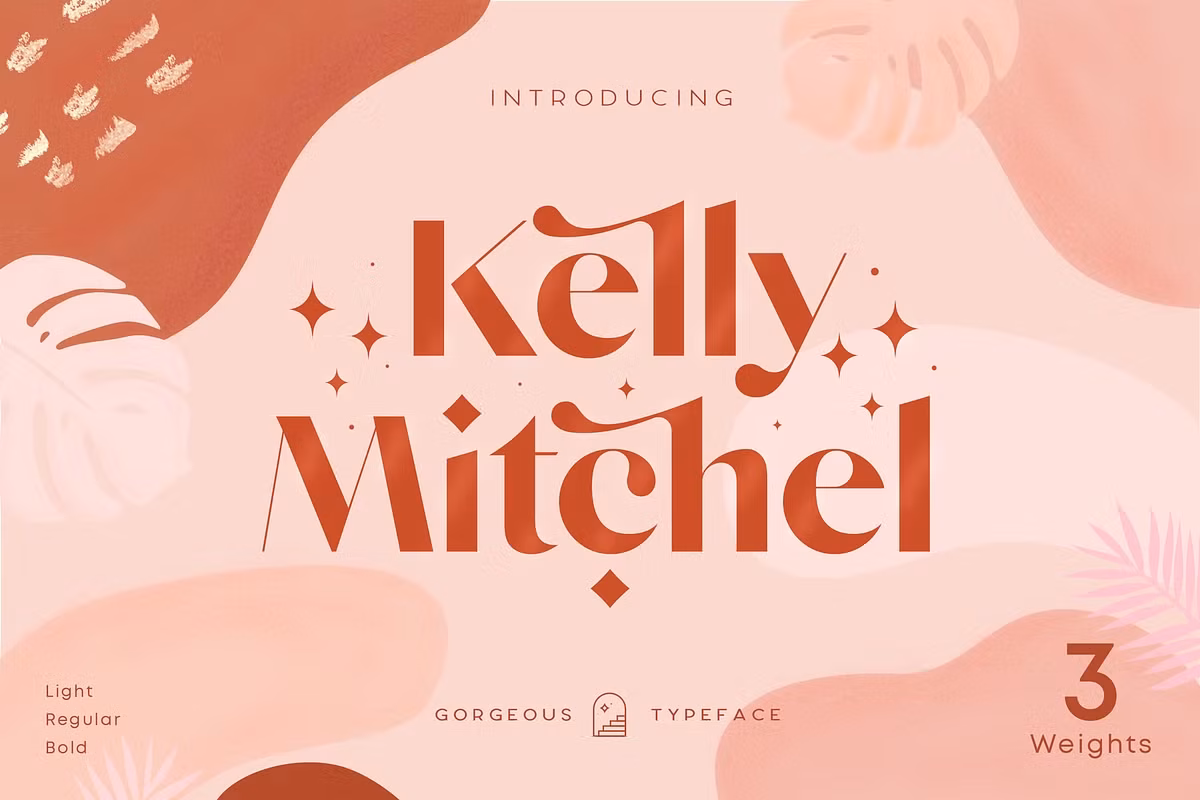
Kelly - Classy Sans Serif Font Free Download is a refined and elegant typeface that combines modern simplicity with timeless sophistication. With its clean lines, balanced proportions, and minimalistic design, Kelly is perfect for branding, editorial design, websites, packaging, and logo creation.
The font’s versatility makes it ideal for both large display text and smaller body copy, offering readability while maintaining a high-end aesthetic. Whether you're working on corporate materials, fashion branding, or creative projects, Kelly adds a sleek, professional touch to any design.